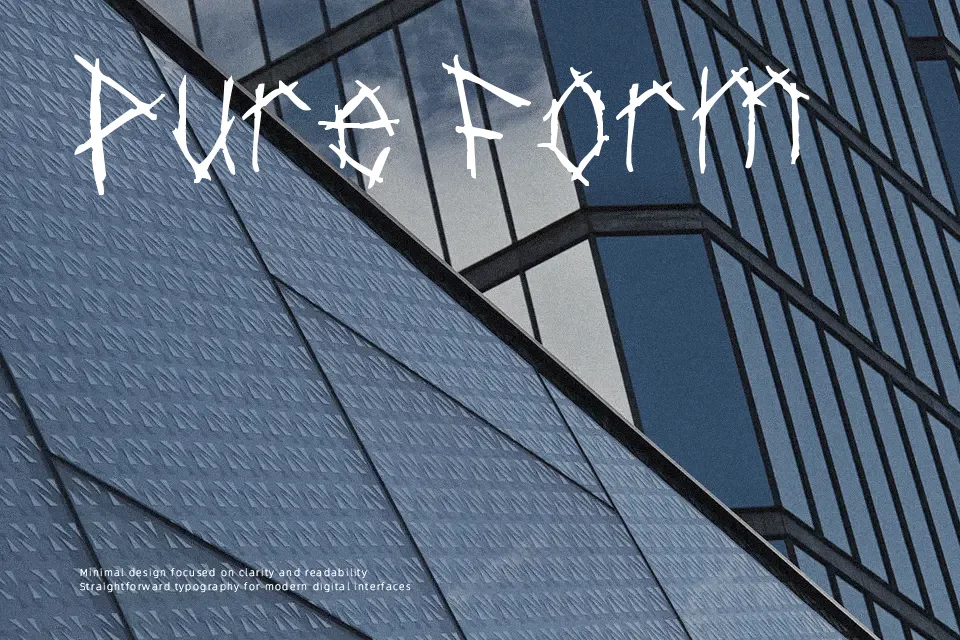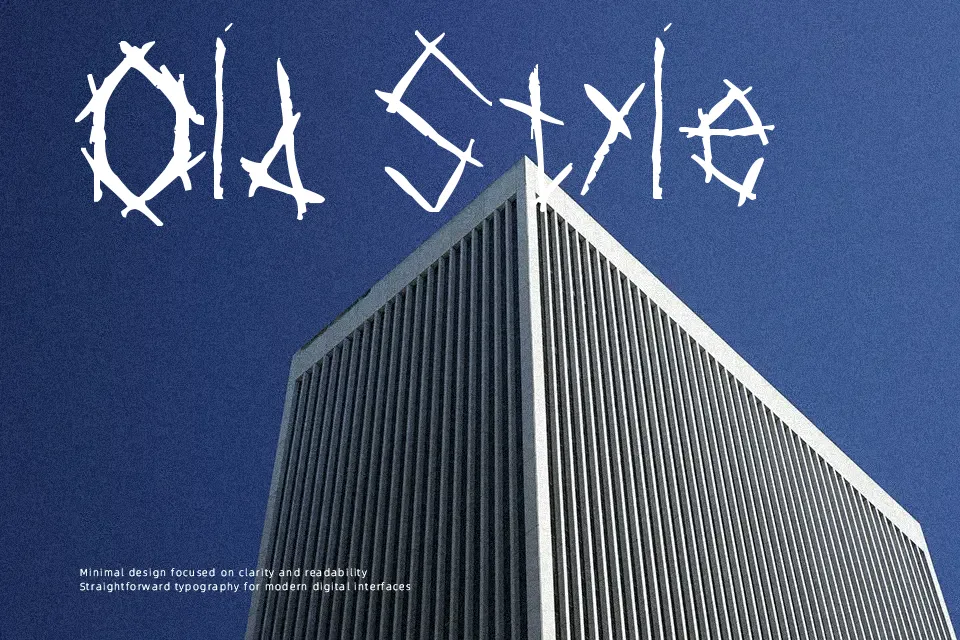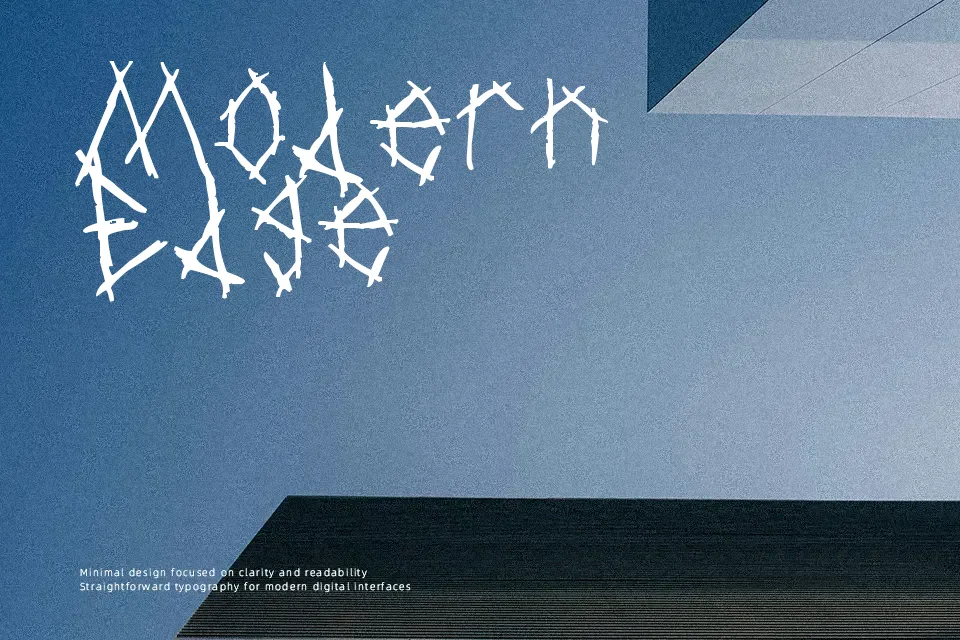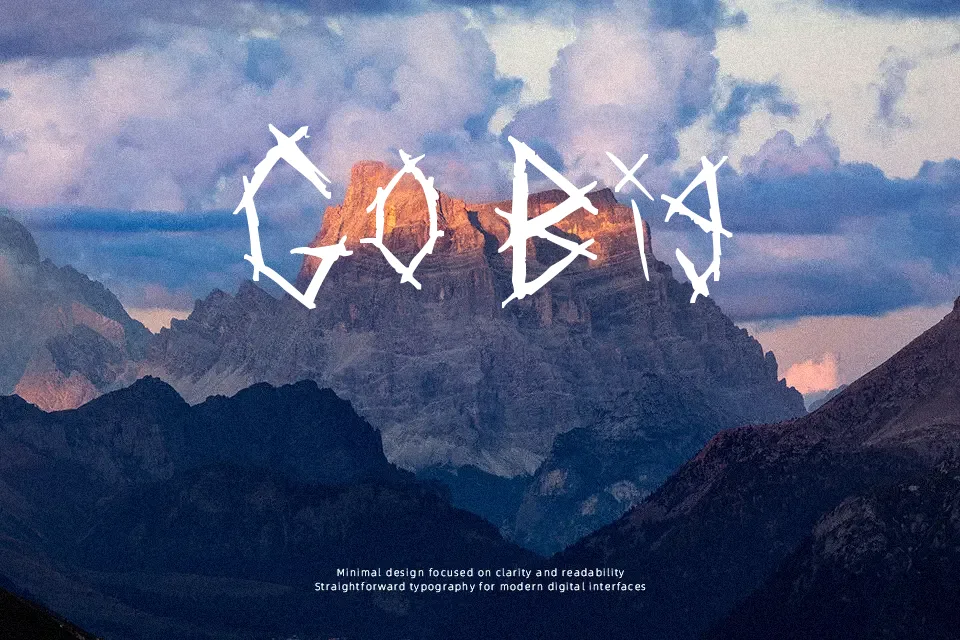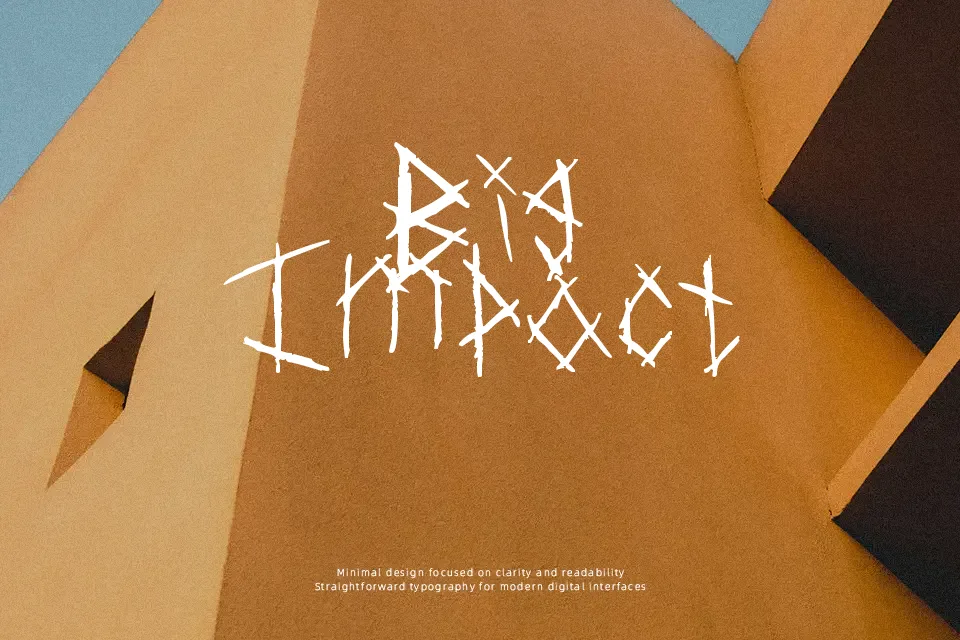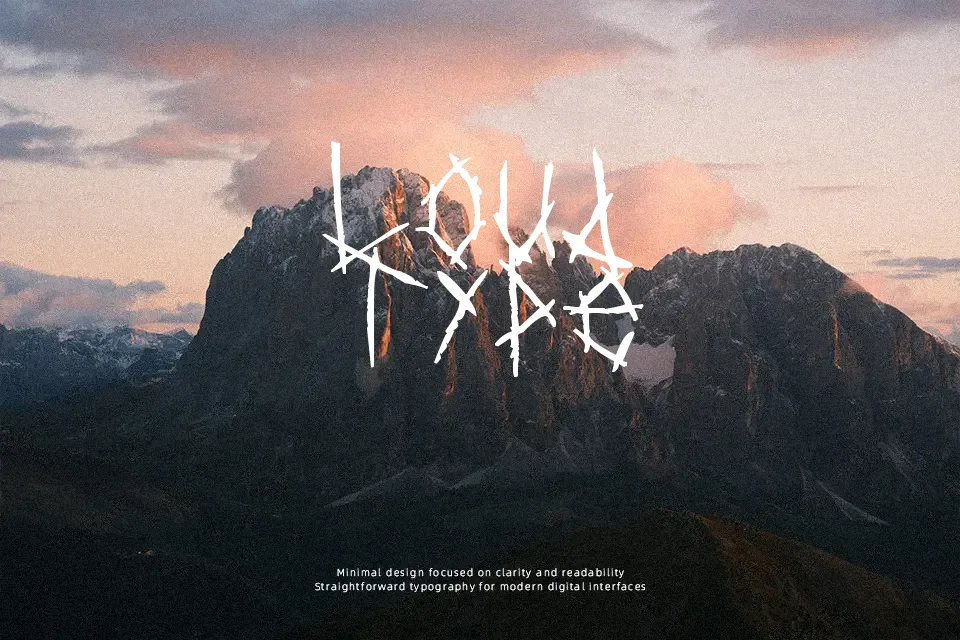
Chiken Skratch Font
Chiken Skratch Font presents a raw handwritten structure defined by jagged strokes, variable baseline alignment, and erratic character proportions. The letterforms carry thin, sketchy outlines that simulate spontaneous scratching on textured paper, resulting in an unsettled visual cadence across lines of text. In display settings, the typeface delivers sharp visual personality for horror game teasers, alternative music posters, and zine headlines. However, the irregular spacing and jagged contours quickly reduce legibility when rendered at small scale. The erratic stroke terminals cause extended body passages to feel visually chaotic, making this design best suited for brief accent phrases and prominent display titles.
Best For: horror movie title cards, alternative music posters, video game promotional art, halloween apparel graphics
Not Ideal For: long paragraph text, mobile user interfaces, corporate annual reports, small caption text
Perfect for gaming, halloween, and headline, with a dark and decorative style.